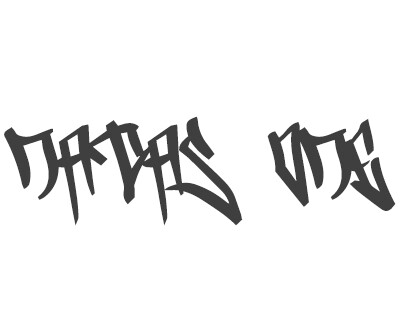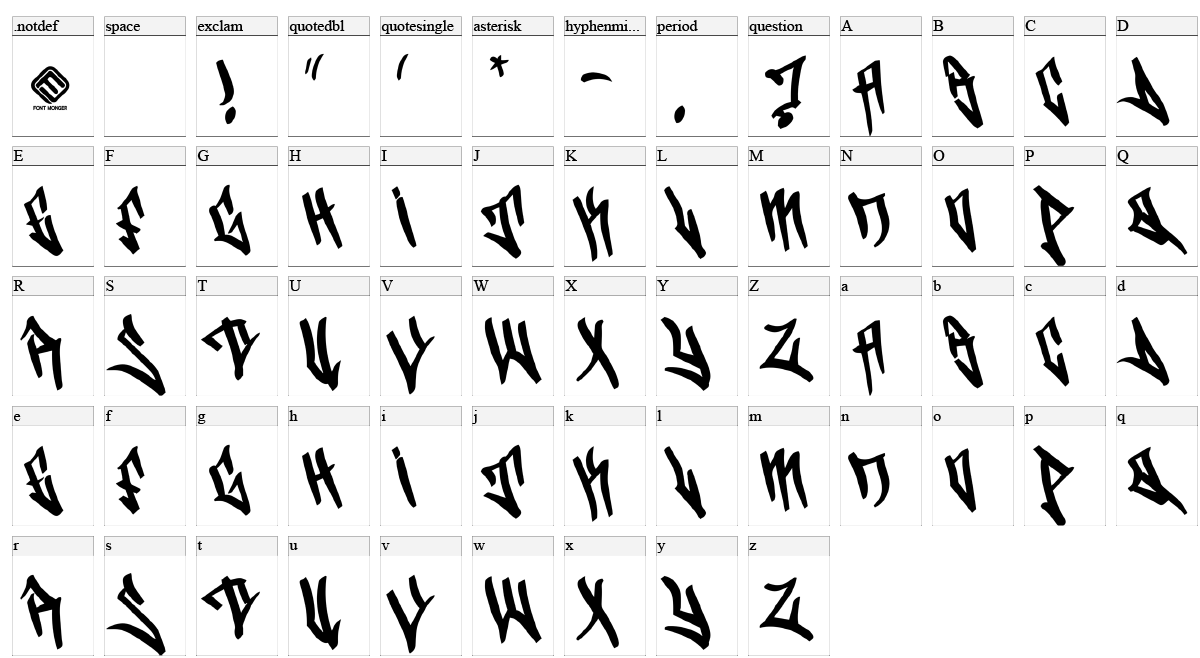
Natas One is a powerful and edgy graffiti font that exudes attitude and boldness. Inspired by the urban street art scene, this font features sharp, angular letterforms with exaggerated edges and curves that give it a distinctive look and feel. The letters have a strong, dynamic energy that makes them stand out, whether used in headlines, logos, or other eye-catching designs. The font is perfect for projects that require a raw, rebellious edge, such as music or fashion marketing campaigns, urban-themed events, or artistic posters. With its sharp lines and bold style, Natas One is sure to leave a lasting impression on any project it is used in.
Lowercase: Same as uppercase
Numbers: No
Symbols & Punctuation: Very limited, view image below
Theme: Graffiti, Handwritten
Accents: No